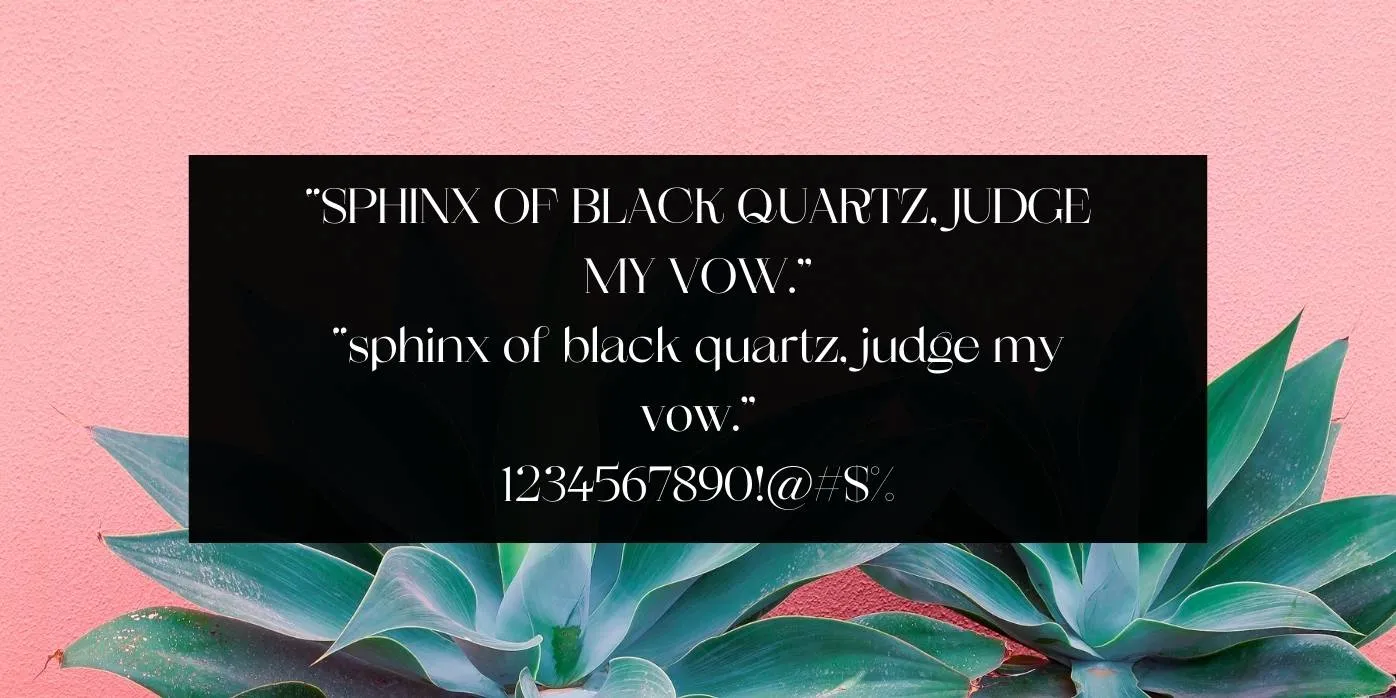
Zermatt Font
Zermatt Font is a humanist serif typeface designed by Swiss typeface designer Max Miedinger in 1957. The name Zermatt refers to the municipality of Zermatt in the canton of Valais, Switzerland. This Font is widely used for both body text and display purposes. For making something really cool, please try the noteworthy Font for your valuable design project.
It is particularly popular for setting headlines and short paragraphs of text in magazines and newspapers. The Font design has a large x-height, wide open counters, and a slightly condensed overall width, which makes it highly legible at small sizes. The letterforms are slightly rotated on the vertical axis, which gives them a more dynamic appearance.